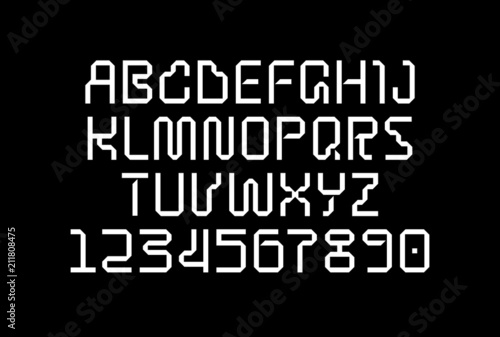
Geometric techno tape font, uppercase latin letters and numerals, electric and futuristic display type that works for game screens and music bands covers, labels and products